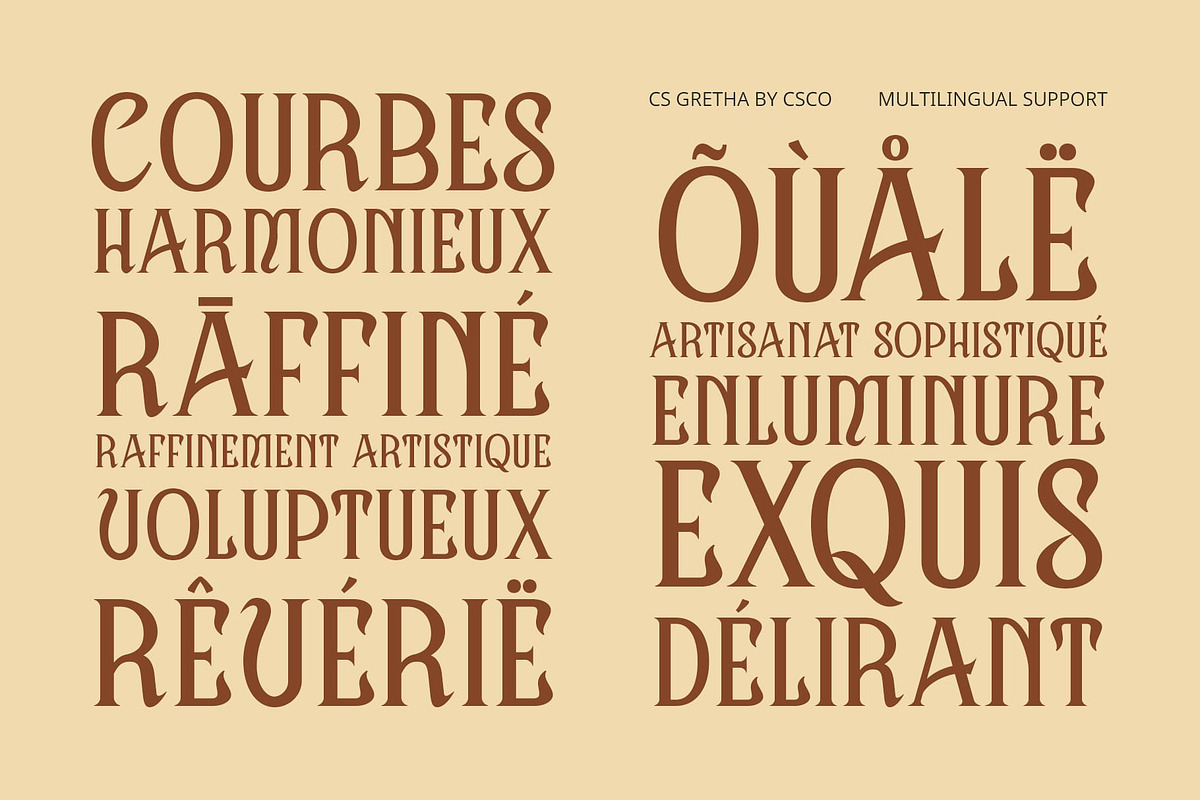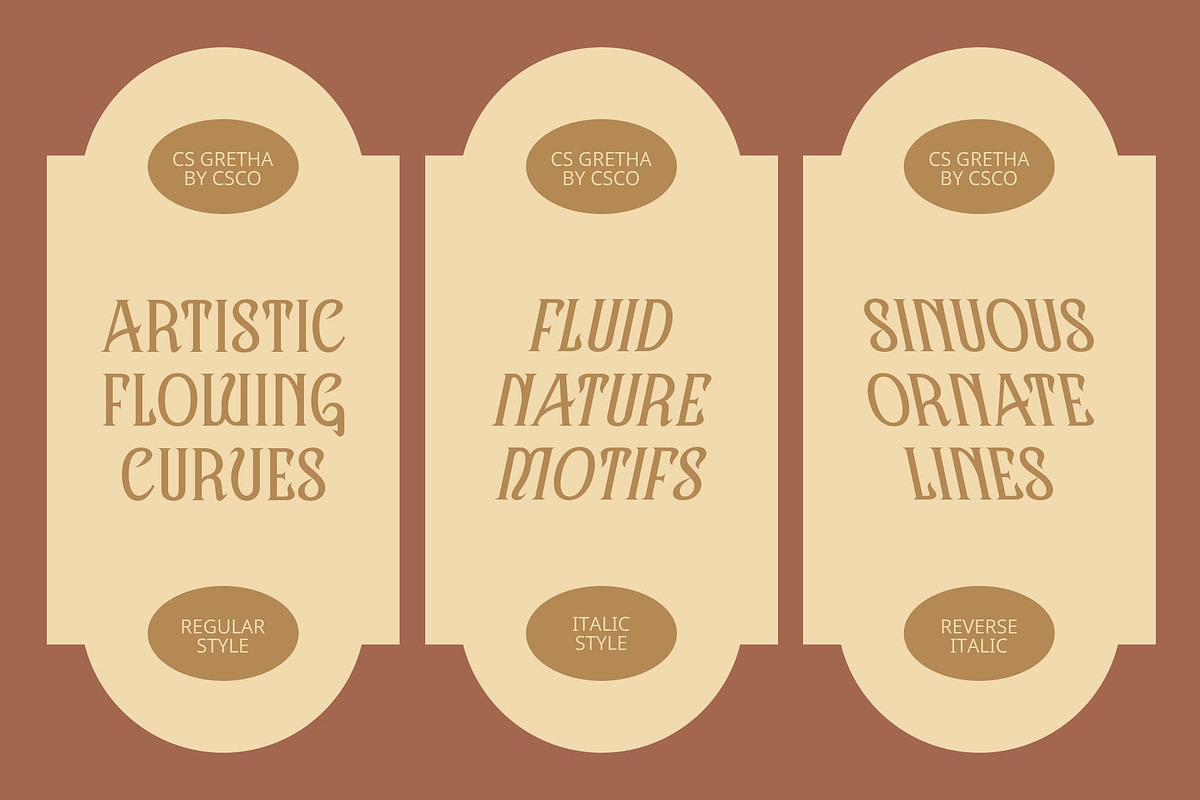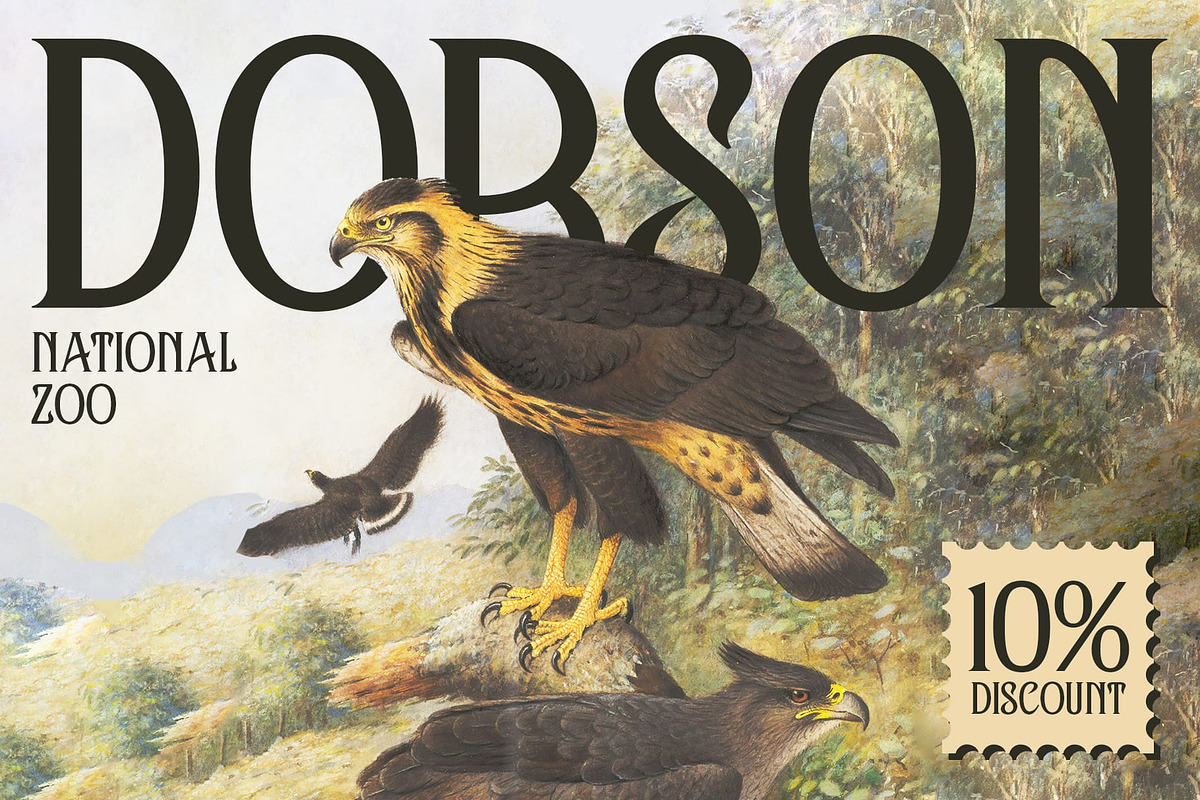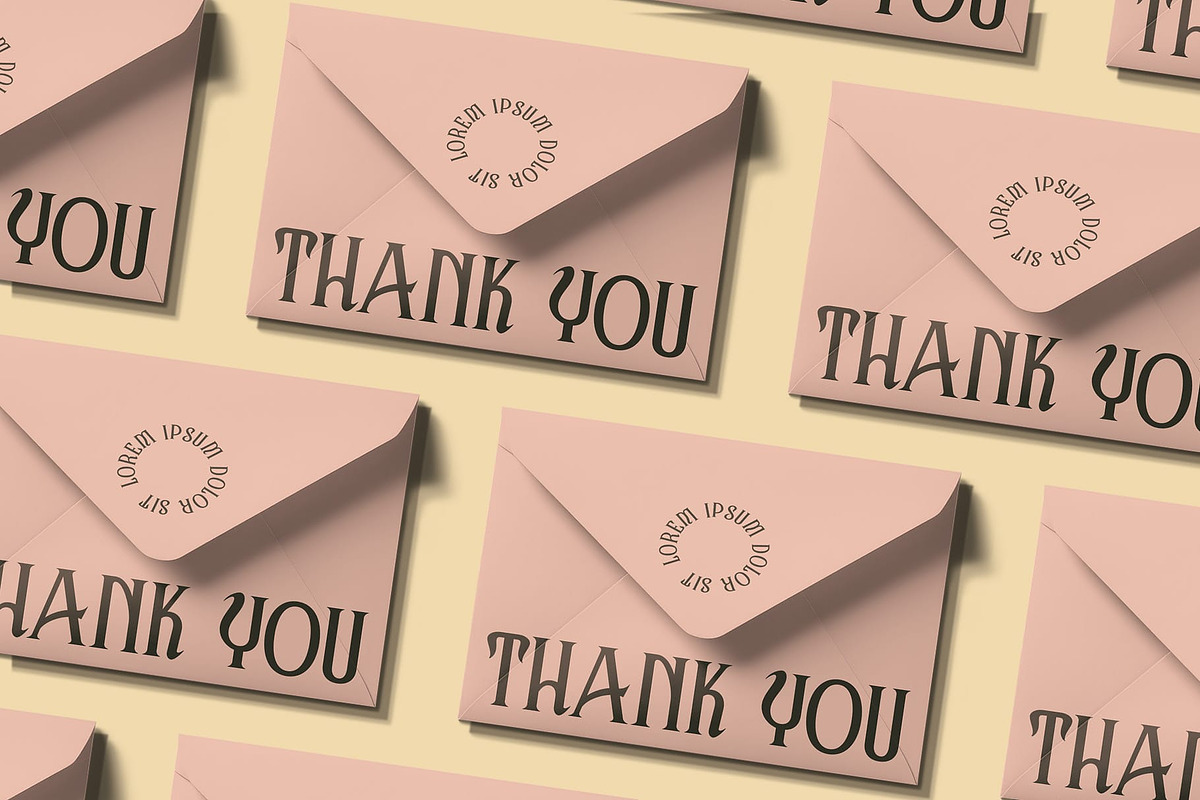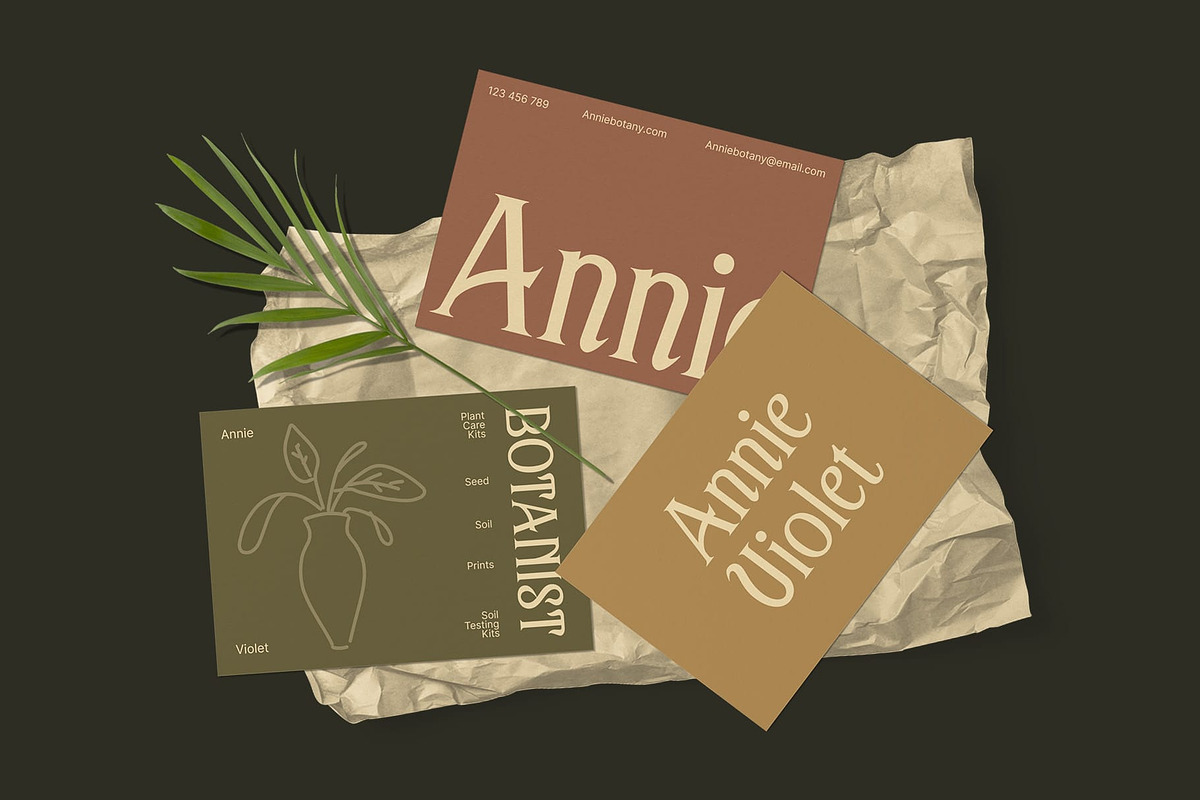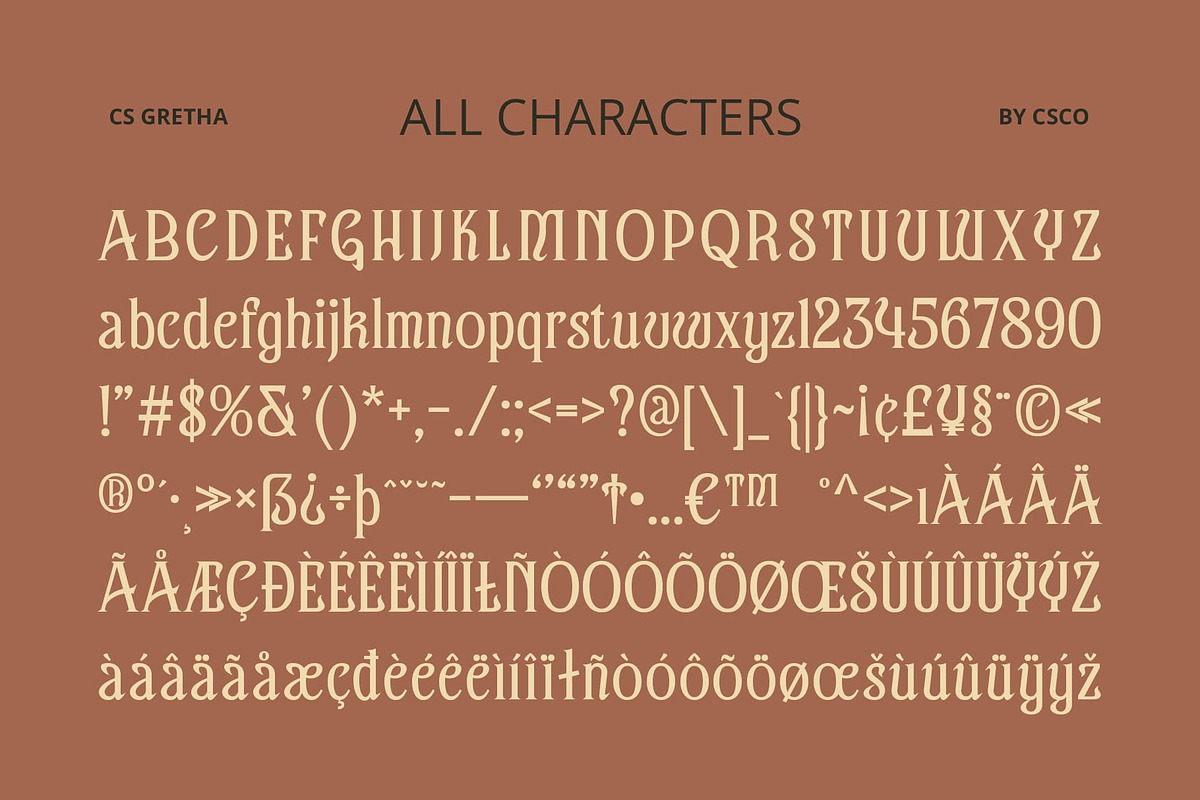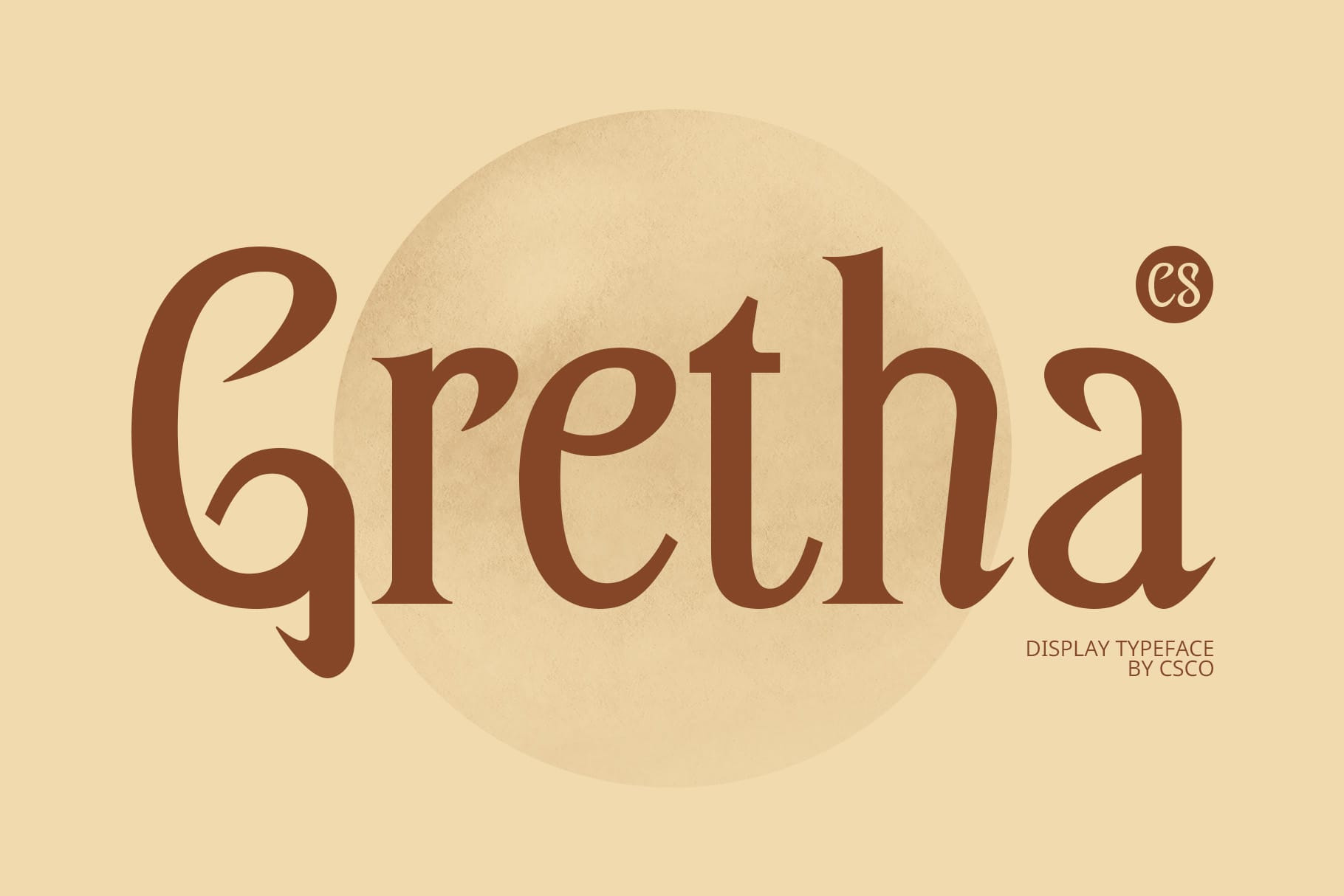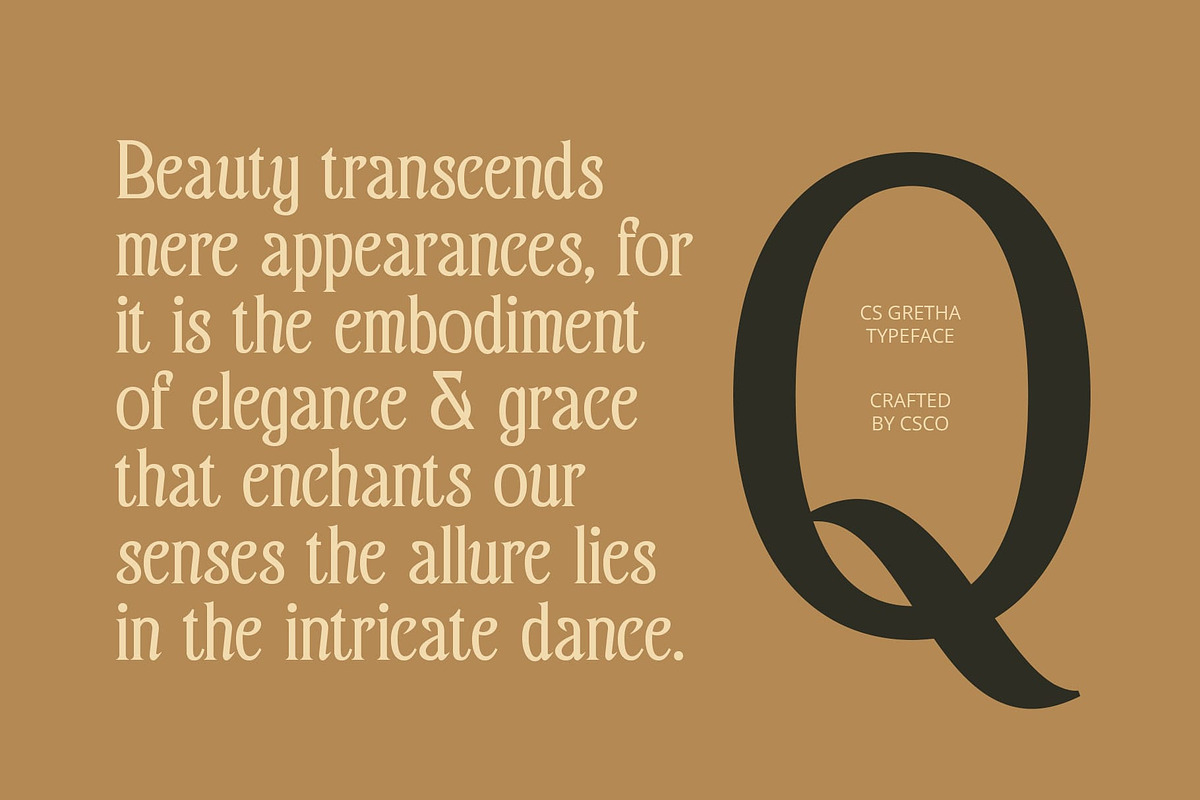
CS Gretha – Elegant Font
CS Gretha Font: Elegant Display Serif Font
Graceful and Artistic Retro Design CS Gretha is a captivating display serif font that seamlessly combines elegance with artistic flair. Its design features graceful letterforms and stylish details that evoke a sense of nostalgia and vintage charm.
Distinctive Classic Elements Blending classic elements with unique artistic touches, CS Gretha stands out with its bold lines and striking details. The font’s retro aesthetic is enhanced by its graceful curves and elegant design, creating a visually appealing and memorable look.
Nostalgic Beauty With its artistic and retro characteristics, CS Gretha brings a sense of vintage beauty to any project. Ideal for designs that aim to capture a nostalgic feel while maintaining a high level of sophistication and visual impact.
Perfect for Elegant and Artistic Projects Whether you’re working on high-end branding, vintage-themed invitations, or artistic editorial layouts, CS Gretha offers the perfect blend of elegance and retro charm. Its distinctive design ensures a strong visual appeal and a touch of artistic flair, making it an excellent choice for projects that require a refined and nostalgic touch.
Elevate your designs with the timeless elegance and artistic beauty of CS Gretha, and infuse your projects with a distinctive retro charm that leaves a lasting impression.
- CS Gretha Regular
- CS Gretha Italic
- CS Gretha Reverse Italic